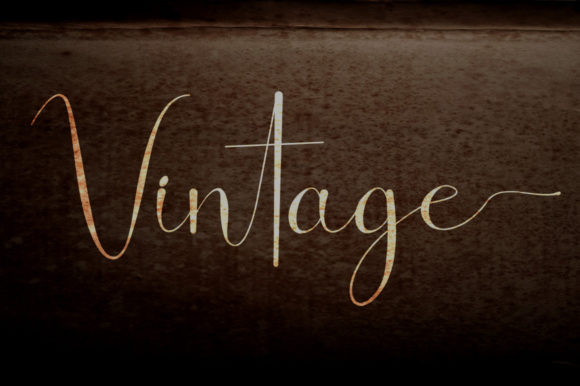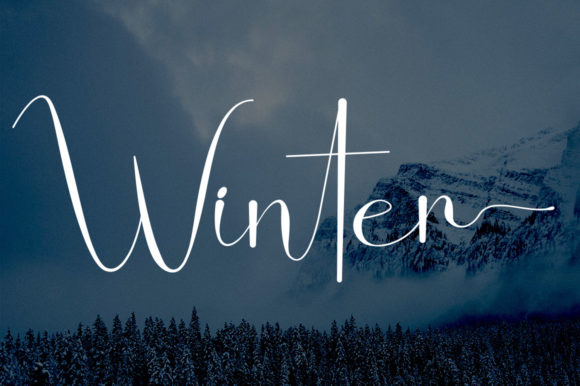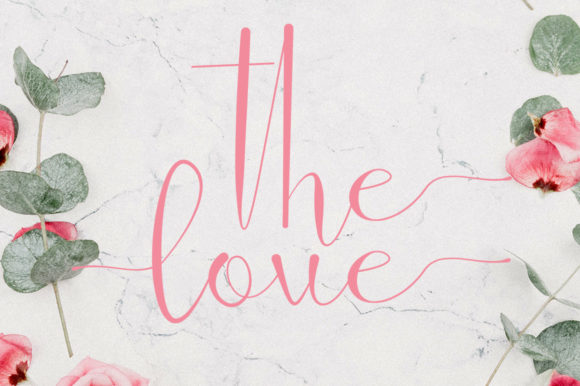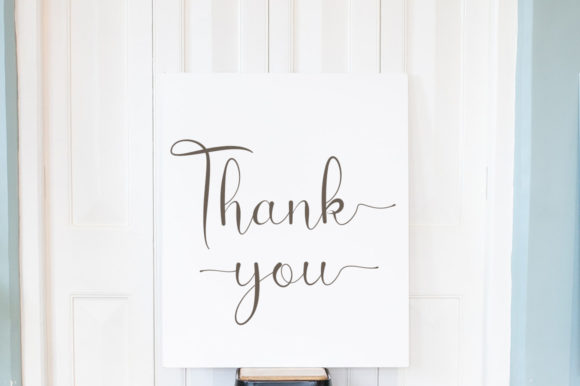
Introduction to Ollivestee Font
Ollivestee is a modern script font that seems to be flowing endlessly.
It embodies elegance, charm, sophistication, and it is the perfect choice for exquisite projects that need top typography This font is PUA encoded, which means you can access all of the glyphs and swashes with ease.